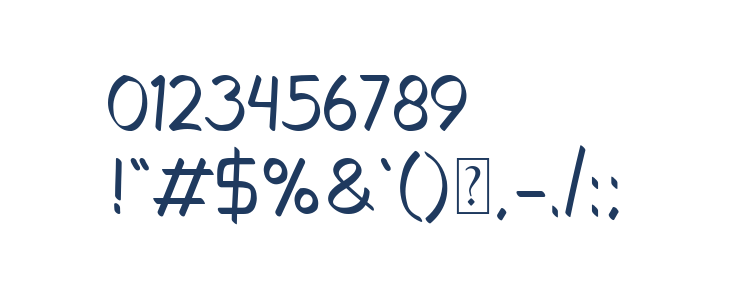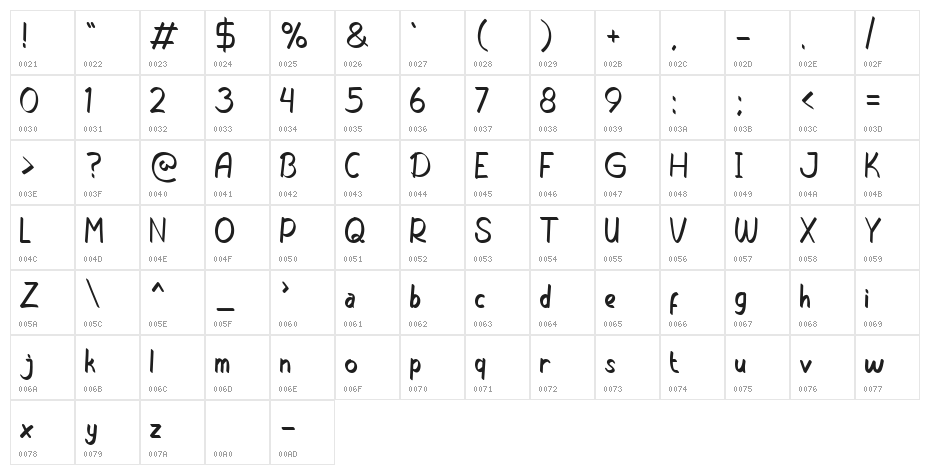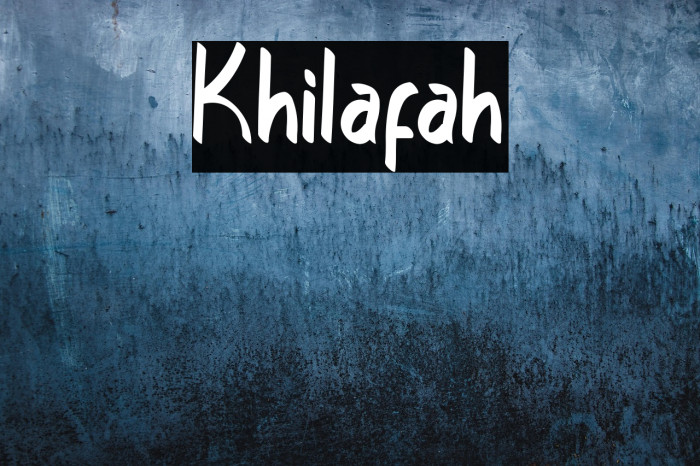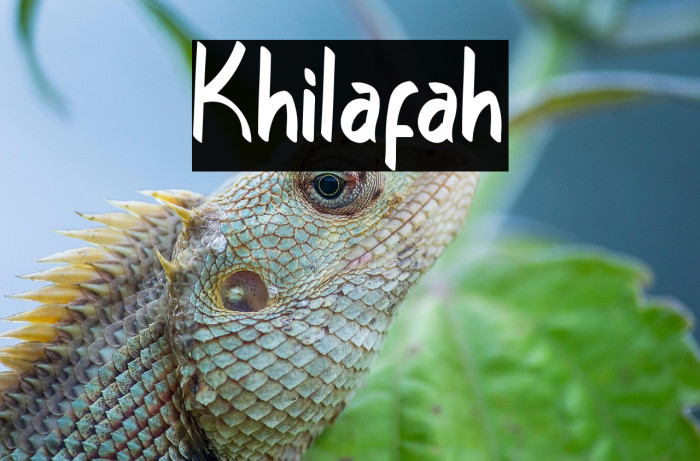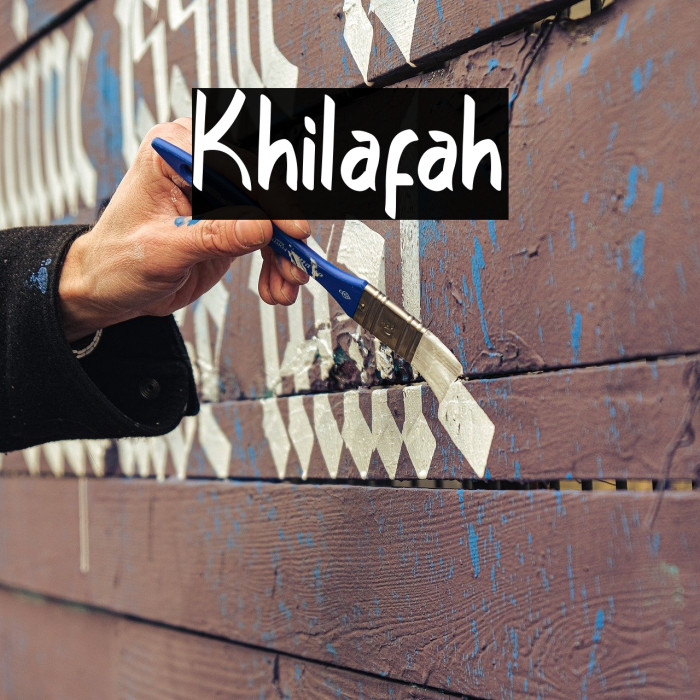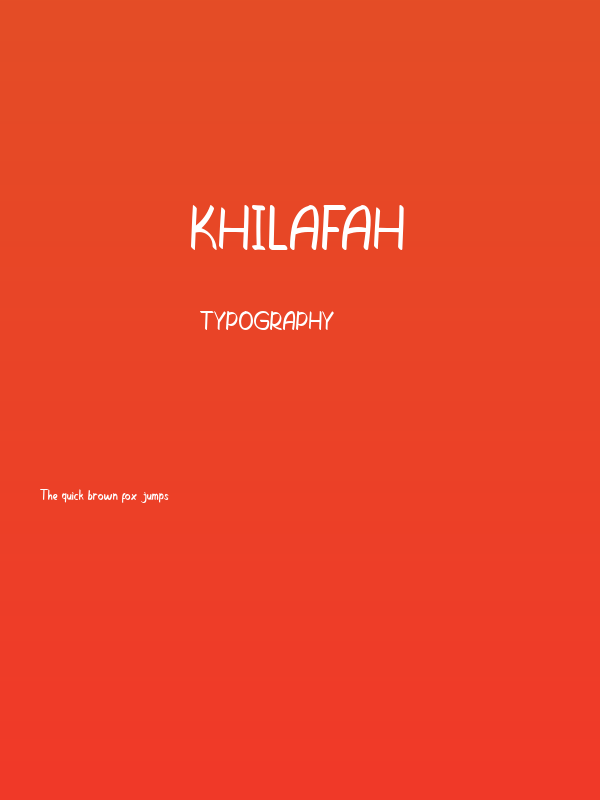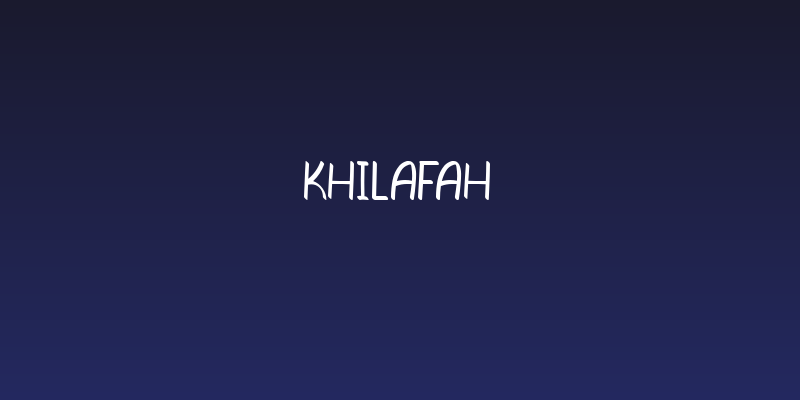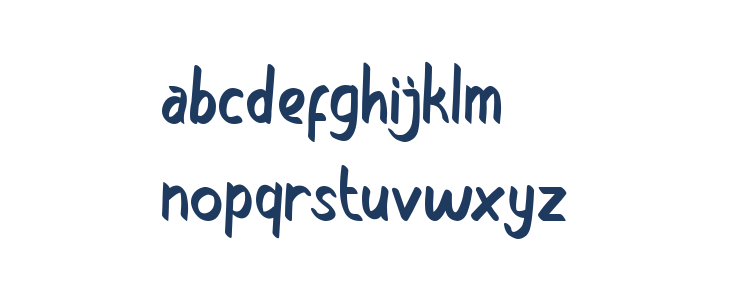
Khilafah Font
Khilafah Description
This font features a playful and informal style with a handwritten appearance. The characters are slightly irregular, giving it a casual and approachable feel. The uppercase letters are bold and rounded, while the lowercase letters maintain a consistent flow with a slight slant. Numbers and special characters follow the same playful aesthetic, making them easily readable yet distinctive. The overall design is cohesive, with a consistent stroke width that adds to its charm. This font is perfect for projects that require a personal touch or a friendly vibe.
| Use Case | Headlines, Informal text, Personal projects |
| Proposed Projects | Ideal for greeting cards, children's books, personal blogs, and informal branding. |